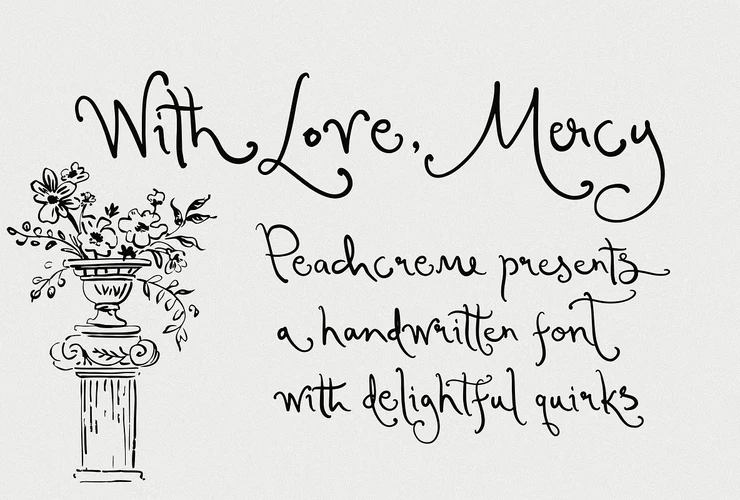
Add a Touch of Whimsy with “With Love, Mercy” Font
The “With Love, Mercy” font by Peachcreme is a whimsical and playful addition to any designer’s toolkit. This unique handwritten font features quirky and irregular letter shapes and directions, making it stand out in a crowd of conventional fonts. Its charmingly unpredictable style offers a fresh, creative twist for those looking to infuse their designs with a personalized touch.
Key Features of “With Love, Mercy”
This delightful font offers several distinctive features:
Quirky Handwritten Style: Each letter in “With Love, Mercy” breaks away from traditional design rules, resulting in a playful and unconventional appearance.
Alternatives for Lowercase Letters: Each lowercase letter has at least one alternative version, allowing for greater flexibility and creativity in your designs.
Selective Uppercase Alternatives: While most uppercase letters retain their original forms, A, M, P, R, and S come with alternative versions to add variety and uniqueness.
Ideal Uses for “With Love, Mercy”
Given its unconventional and playful nature, “With Love, Mercy” is perfect for:
Complementary Font: Use it to add a whimsical touch to designs, pairing it with more conventional fonts for a balanced look.
Personalized Projects: Ideal for greeting cards, invitations, and social media graphics where a handwritten feel adds warmth and personality.
Creative Ventures: Perfect for branding projects, children’s books, and artistic endeavors that benefit from a quirky and playful aesthetic.
Compatibility and Usage Tips
While “With Love, Mercy” offers unique charm, it is best used as a complementary font rather than a primary typeface due to its irregular style. This ensures readability while still providing a delightful handwritten touch.